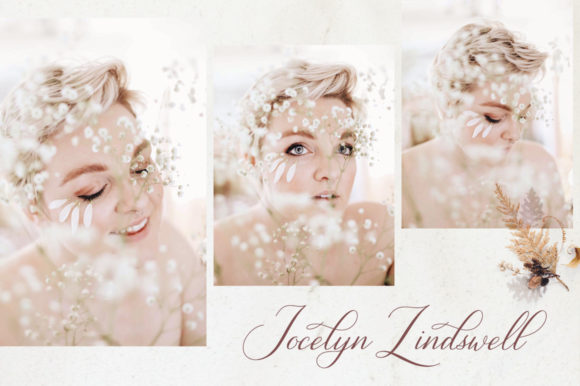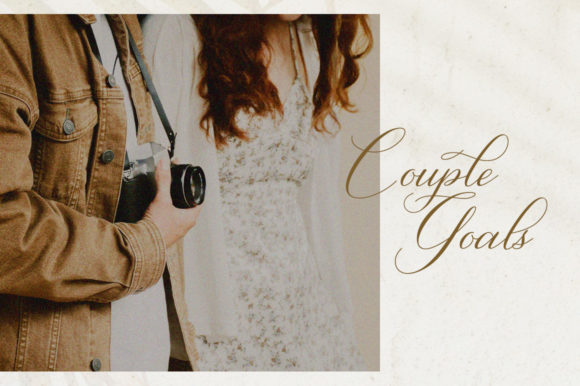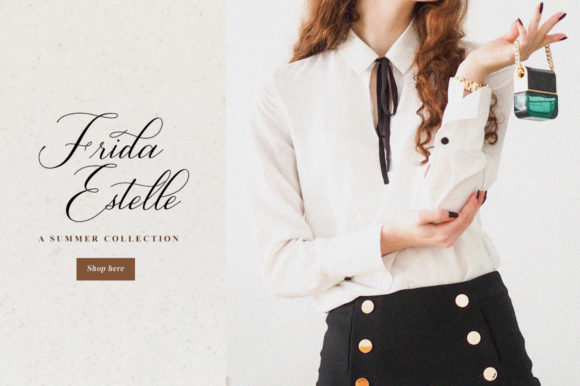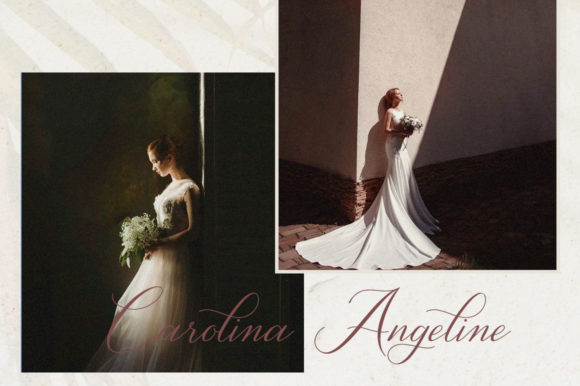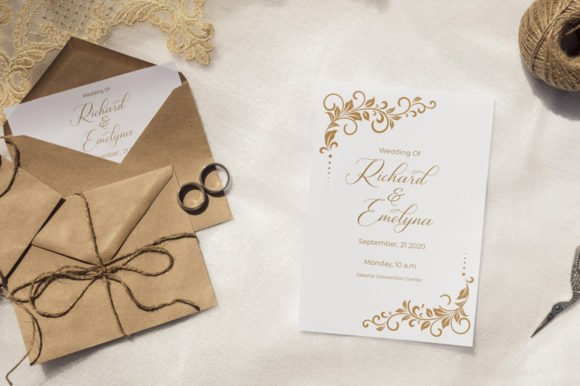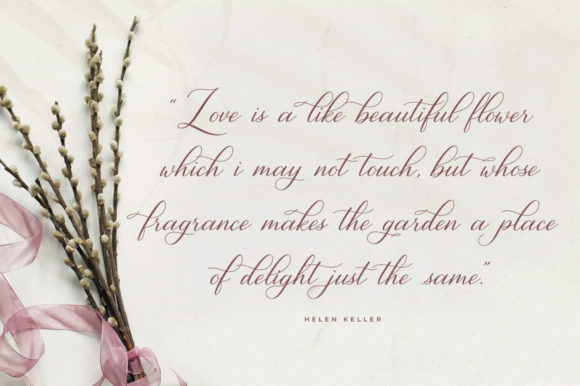
Introduction to Gresilya Font
Gresilya is a beautiful and refined script font.
It has a classy, elegant and modern look that can be used for logos, branding, invitations, stationery, wedding designs, social media posts, and much more This font is PUA encoded which means you can access all of the amazing glyphs and ligatures with ease.
Key Features of Gresilya Font
Why Choose Gresilya Font?
Gresilya Font offers exceptional quality and versatility, making it a valuable addition to your design toolkit. Whether you’re creating for personal projects or commercial use, Gresilya Font delivers professional results.